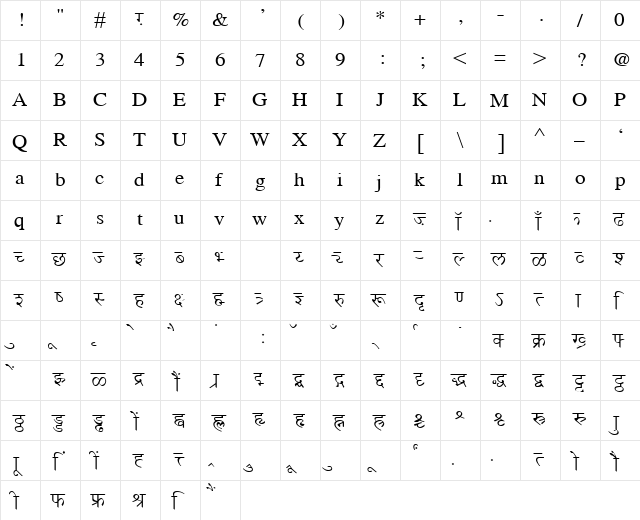
AkrutiOfficePriya Normal
Design Context for AkrutiOfficePriya Typeface
AkrutiOfficePriya takes a measured approach to typography — its balanced proportions and neutral character make it a reliable workhorse for both digital and print work.